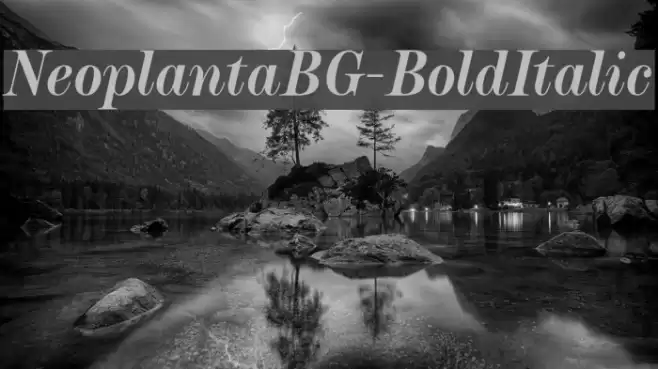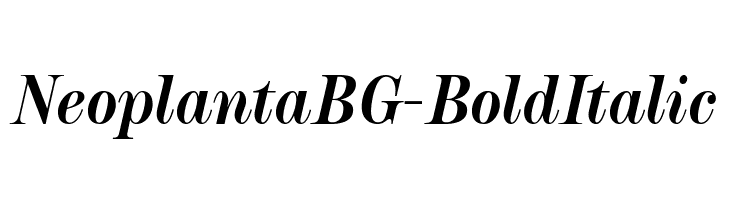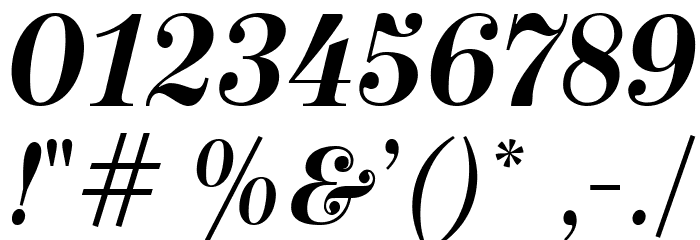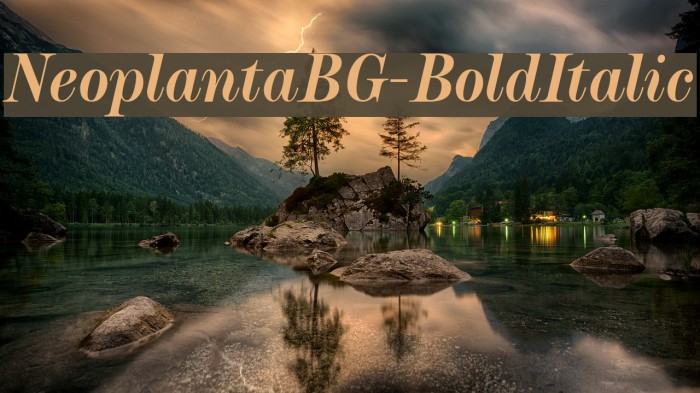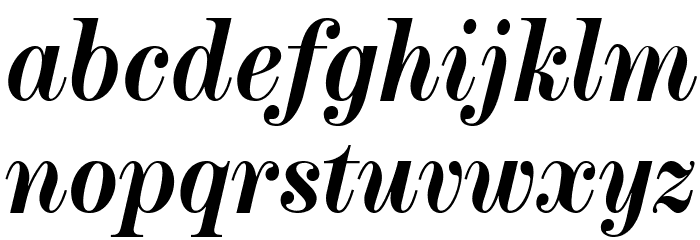
NeoplantaBG-BoldItalic Font
NeoplantaBG-BoldItalic Description
This font exudes a classic elegance with its bold and italicized style, featuring smooth curves and a sophisticated flair. The uppercase letters are stately and commanding, while the lowercase letters maintain a graceful continuity. Numbers are robust and clear, ensuring readability. Special characters are designed with a touch of refinement, making them suitable for various formal applications. The overall design is balanced, with a slight slant that adds dynamism and movement to the text. This font is ideal for projects that require a touch of class and sophistication.
A bold and italicized font with classic elegance and smooth curves from Uncategorized fonts.
- Proposed Projects: Ideal for luxury branding, wedding invitations, formal event programs, and elegant packaging designs.
- Overall Style: Classic
- Use Case: Headlines, Logos, Invitations